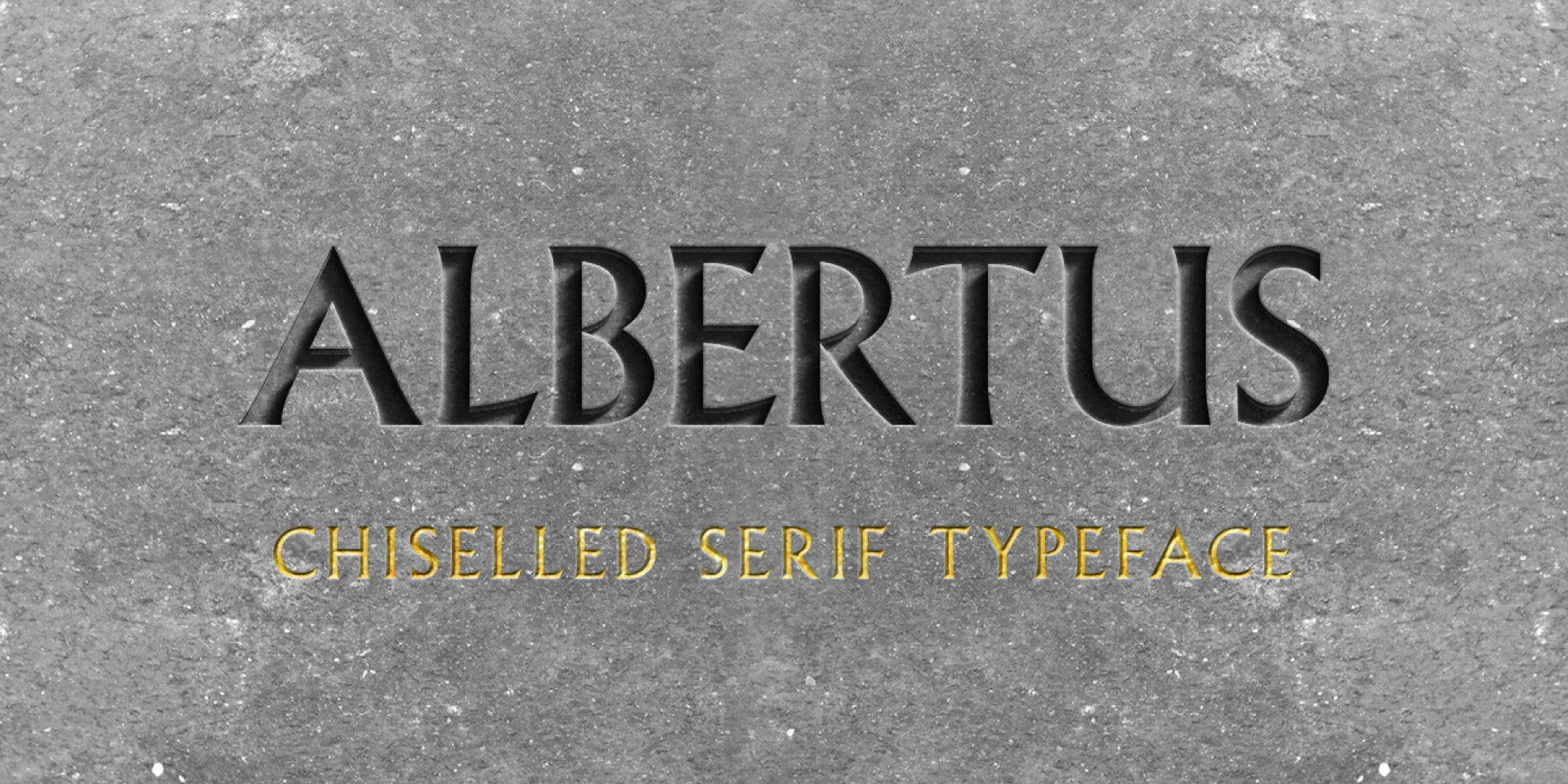
The Albertus Font is an exceptional choice for projects that demand a blend of classic elegance, sculptural artistry, and a distinctive, timeless appeal. Designed by Berthold Wolpe, it stands out as a unique flared serif or semi-serif typeface, perfectly suited for book covers, museum exhibition titles, university branding, signage for prestigious institutions, religious texts, and any design that requires a strong, dignified, and aesthetically profound presence. Its chiseled and robust character makes it ideal for conveying a sense of heritage, intellectual depth, and enduring beauty.
What makes Albertus Font so exciting is its remarkable origin and distinctive letterform construction, which gives it a monumental and carved appearance. Inspired by letters incised in bronze and stone, it features unique flaring at the ends of its strokes instead of traditional serifs, lending it a sculptural quality. This font isn't just about reading words; it's about experiencing them as if etched by a craftsman, making your content feel both authoritative and artistically rich. It excels at delivering a powerful visual impact, especially in headlines and display contexts, ensuring your messages are bold, memorable, and imbued with a sense of classical gravitas. Its legibility, despite its unique design, is remarkably high, making it versatile for various applications.
The Albertus Font family typically focuses on variations that enhance its core distinctive aesthetic. You can expect a strong regular weight, often accompanied by Light and Bold versions to provide a good range of emphasis. Sometimes, specific stylistic alternatives or a slightly more condensed variant might also be available. The emphasis for Albertus Font Free Download is on preserving and enhancing its unique, chiselled appearance, ensuring that each letter contributes to its overall monumental and timeless character.
Whether you're designing a classic book series, crafting a prestigious university logo, or creating compelling signage for a public building, the Albertus Font Free Download offers an indispensable tool. Its artistic appeal and commanding visual presence make it a premier choice for any project that requires a typeface of exceptional beauty, historical resonance, and distinctive strength.